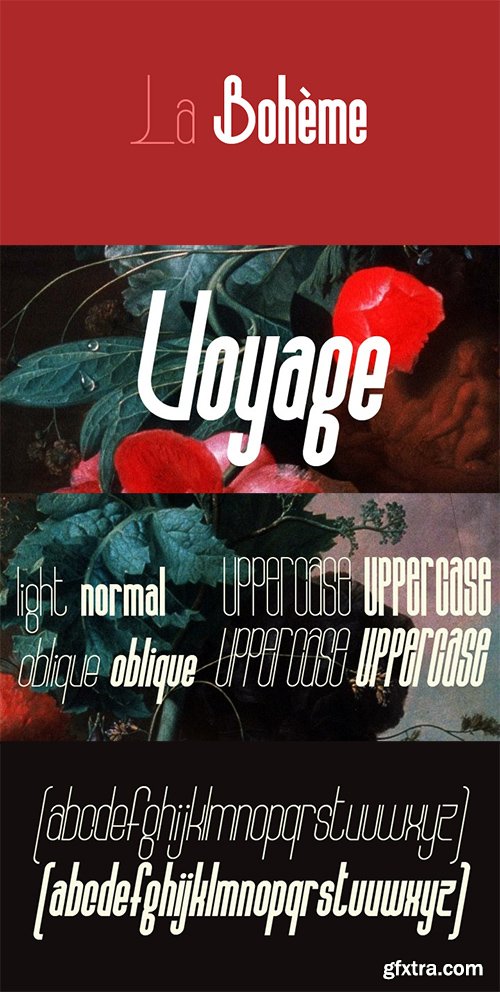
CM - Bohema 87607
- Bohema is an Art Deco font with a modern twist, available in 8 distinct styles + 4 alternative ones as a bonus in the full pack and ideal for headlines, branding, merchandising and a special occasion that requires a different typeface.By buying the full pack you will receive, free, 4 alternative families which include alternative characters.
- Bohema is a classic art deco typeface with a modern twist, the Bohema Font Family is a revival of the past with a modern look from the future. The font family includes 20 unique and distinct styles to give your next project that special elegant and deco touch you might be looking for.
Bohema Family Highlights:
- Art Deco Style
- Style of the early 1900s but with a modern-day feel.
- Retro meets modern feel.
- 20 Font Styles
- Layered Styles